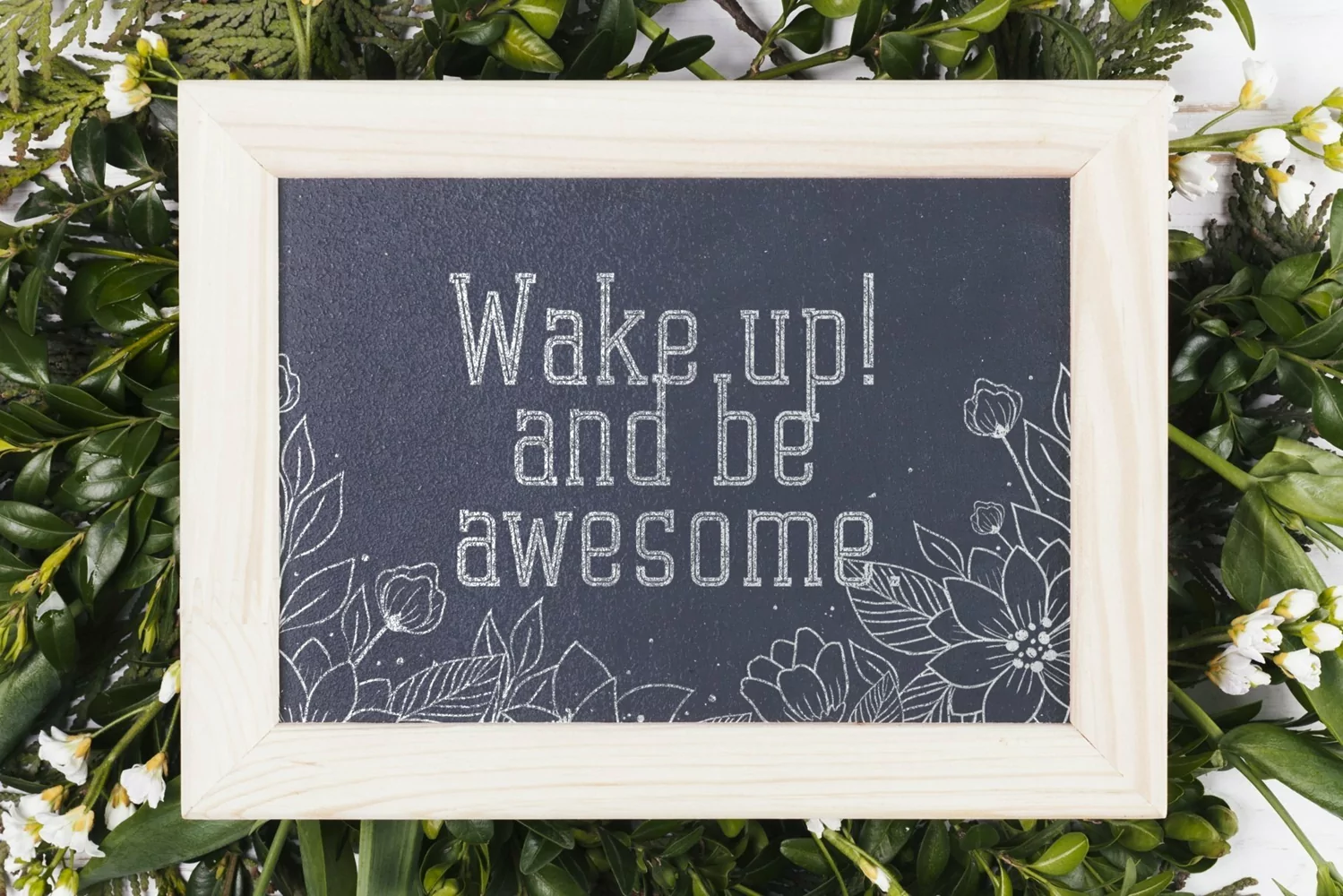
Dorios is a display typeface. Perfect for display, quotes, poster, logo, logotype, branding, crafting needs, event needs, packaging, merchandise, header, tittle business card and many more.